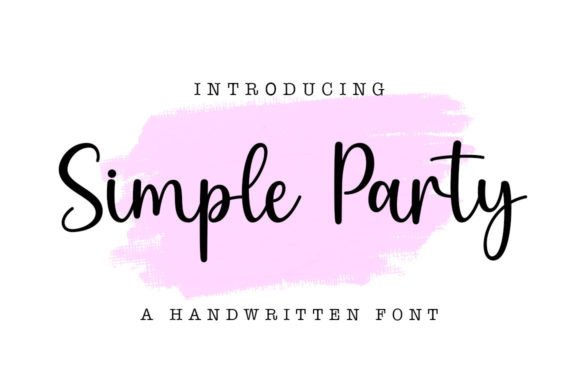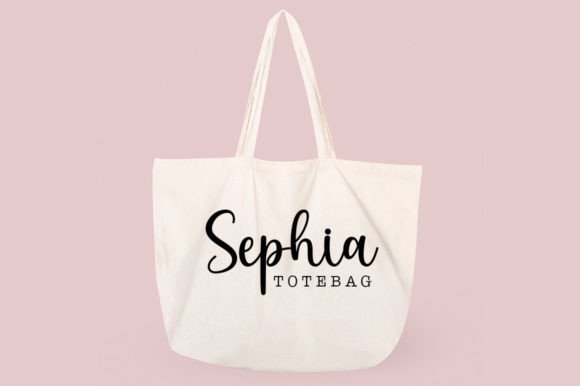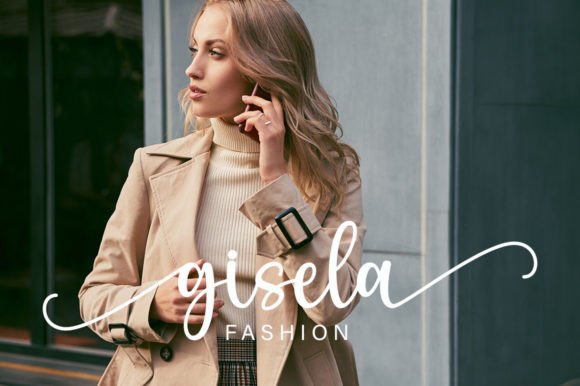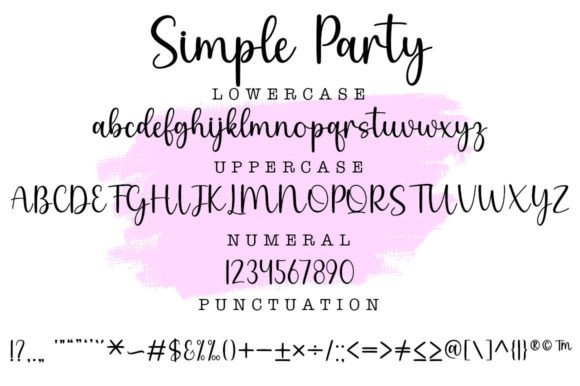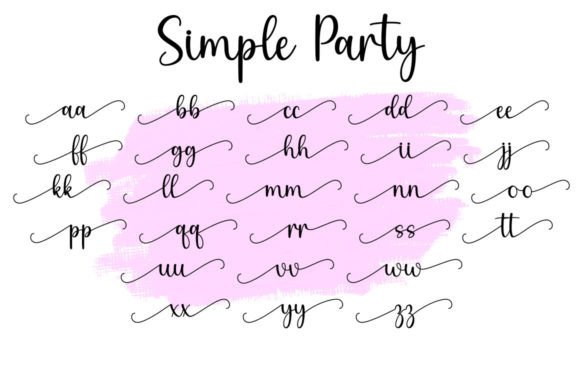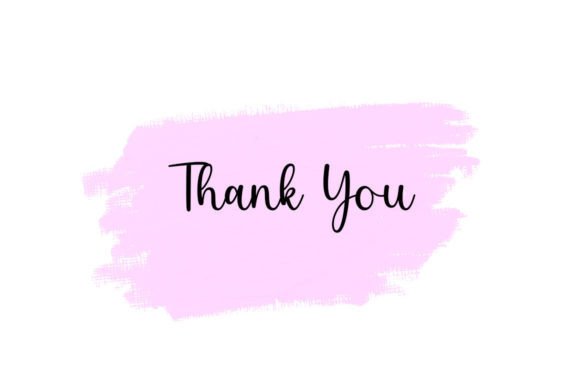
Simple Party Font
The Simple Party Font Download is a delicate and elegant handwritten script designed to bring sophistication and charm to your creative projects. With smooth, flowing strokes and timeless appeal, this font enhances designs with a refined handwritten touch. Because it is PUA encoded, you can access all glyphs and swashes with ease, giving you full freedom in customization.
A Flowing Script with Timeless Style
The Simple Party script font combines graceful handwritten curves with a clean, modern structure. As a result, it feels versatile, stylish, and highly functional. Furthermore, it adapts effortlessly from small stationery items to large-scale branding, making it a valuable asset for any designer.
Handwritten fonts always add warmth and intimacy to stationery. The Simple Party Font is perfect for wedding invitations, thank you cards, birthday greetings, and festive designs. Because of its delicate flow, each card looks polished and heartfelt. In addition, it guarantees that your stationery will leave a lasting impression.
Branding and Logo Design with Simple Party Font
Typography sets the tone for brand identity. The Simple Party handwritten font is excellent for boutique logos, product packaging, and promotional campaigns. Its elegant handwritten strokes balance creativity with professionalism. Therefore, it works especially well for fashion, lifestyle, and event-related industries.
Posters, Titles, and Editorial Projects
The Simple Party Font Download also shines in posters, banners, magazines, and book covers. It remains highly legible across all sizes while adding handwritten sophistication. Consequently, it is an excellent choice for designers seeking beauty with clarity.
In the modern digital space, fonts must adapt seamlessly across platforms. The Simple Party typeface integrates perfectly into Instagram graphics, Pinterest visuals, YouTube thumbnails, and blogs. Because of its flowing handwritten energy, it ensures digital projects look engaging, stylish, and modern.
Why Designers Choose Simple Party Typeface
Designers appreciate fonts that combine elegance with usability. The Simple Party handwritten script retains its romantic character while remaining easy to read. This makes it suitable for professionals and hobbyists alike. Moreover, its timeless handwritten style ensures it will stay relevant for years to come.